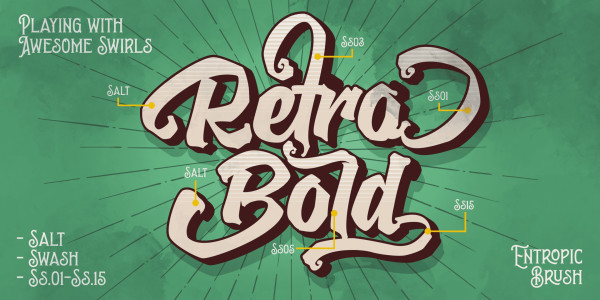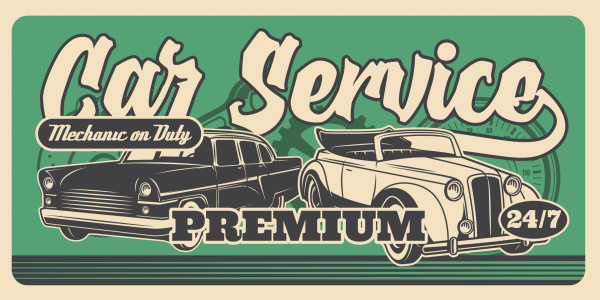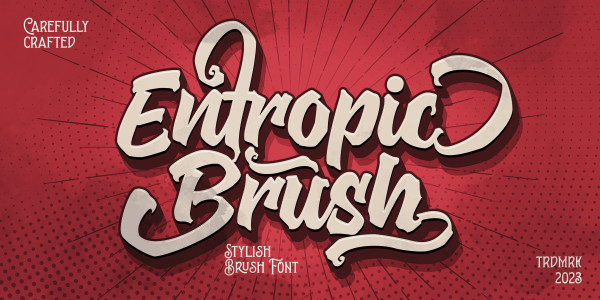
Entropic Brush Font
Entropic Brush Font is a striking brush font that boasts a wild and rustic charm. Its heavy, oak-like strokes and thick brush texture give it a bold and distinctive character.
Use characters _ ¤ # after any word to make a swash.
Example: Spline_ Sonic¤ Brush#
Use multiple _ ¤ # to make swashes of different lengths.
Example: Superhuman______